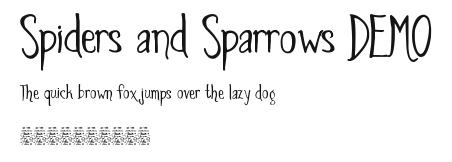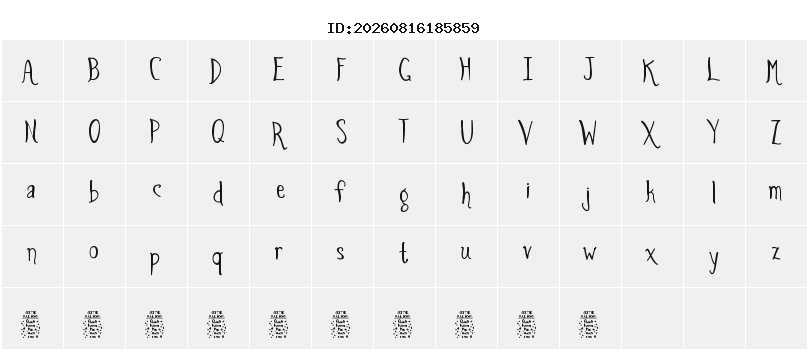
• Font Name: Spiders and Sparrows DEMO
• Designer: Quick Brown Fox Fonts
About Spiders and Sparrows DEMO.ttf
Spiders and Sparrows DEMO.ttf is a modern, elegant sans-serif font designed for ultimate readability and visual harmony. Perfect for branding, headlines, web design, and print materials.